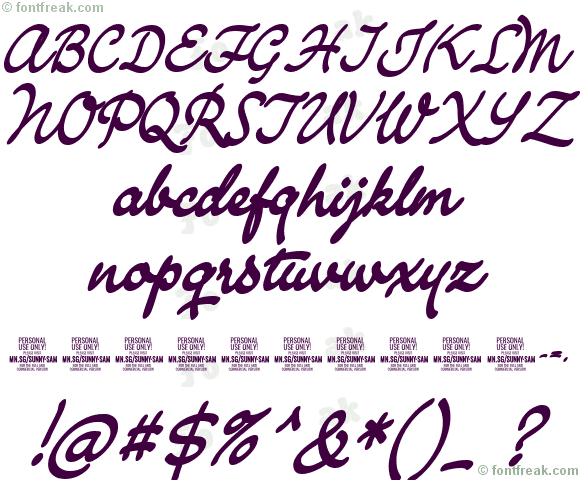
SunnySamPERSONAL-Bold
About SunnySamPERSONAL-Bold
SunnySamPERSONAL-Bold by Mans Greback is a striking handwritten font that captures the essence of playful creativity. As a display typeface, it features a bold stroke weight that makes it stand out in any design. The font showcases a moderate contrast in its letterforms, creating a dynamic visual impact. The unique characteristics of SunnySamPERSONAL-Bold include its irregular, flowing lines and charming decorative elements that add an artistic touch to the typography. The spacing between the letters is thoughtfully crafted, ensuring readability while maintaining an inviting aesthetic.
This font is particularly well-suited for a variety of creative applications. It shines in wedding invitations, where its personal touch can evoke heartfelt emotions. Movie posters can benefit from its bold presence, capturing attention and conveying a sense of excitement. Restaurant menus that seek to create a warm and welcoming atmosphere will find this font to be an excellent choice, appealing to diners with its friendly vibe. Additionally, greeting cards and promotional materials for small businesses can leverage the distinctiveness of SunnySamPERSONAL-Bold to make a memorable impression.
The target audience for this font includes graphic designers looking for unique typefaces to enhance their projects, small business owners who want to create engaging branding materials, and content creators in need of eye-catching typography for social media posts or blogs.
What sets SunnySamPERSONAL-Bold apart is its ability to blend boldness with a handwritten charm, making it versatile for both formal and informal contexts. With its freeware license, users can enjoy the benefits of this delightful font without any cost, making the SunnySamPERSONAL-Bold font free download an opportunity not to be missed for creative projects.